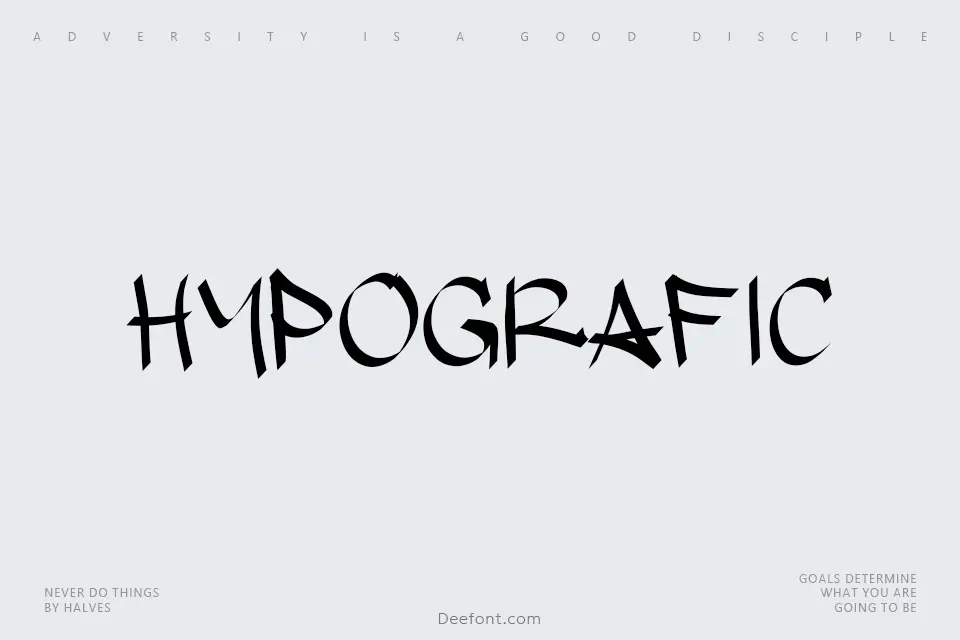
Hypografic Font
Hypografic is an elegant graffiti script font designed by Adriel Almirol, perfect for creative projects that demand expressive street art typography. With its flowing, artistic letterforms and distinctive decorative style, Hypografic brings urban sophistication to headlines, posters, logos, and branding designs. The font’s graceful curves and dynamic character make it ideal for designers seeking authentic graffiti aesthetics without sacrificing legibility. Whether creating album covers, social media graphics, or display materials, Hypografic delivers bold visual impact with refined elegance, making it a versatile choice for contemporary and artistic design applications.